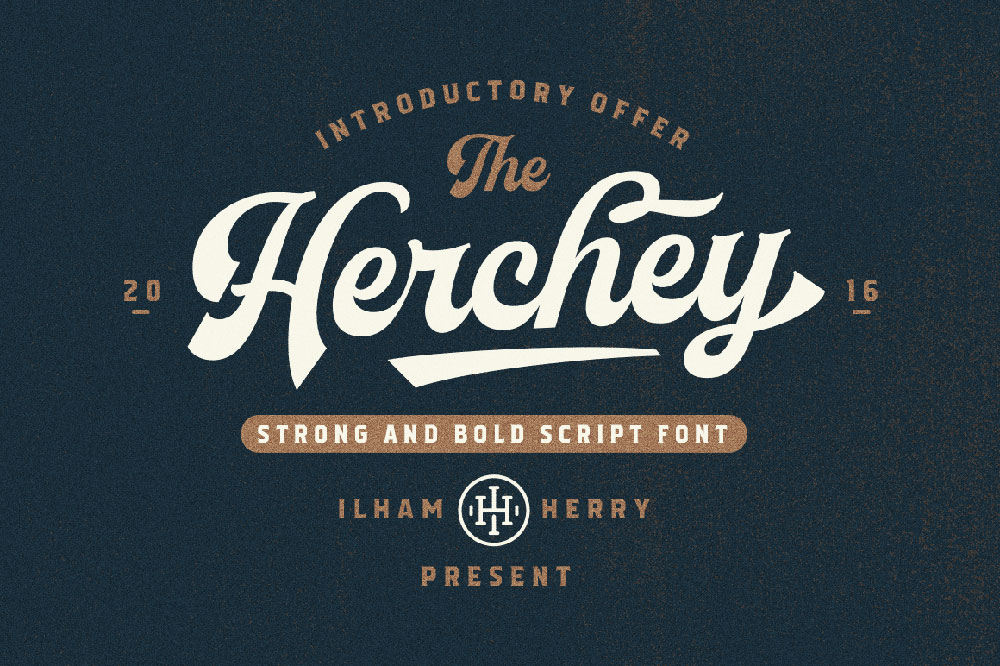
Friends, I am so excited to introduce another awesome fonts bundle by our friends at Pixelo: The Fontastic Bundle. This collection is the most complete fonts bundle they've ever launched. It contains 27 high-quality fonts in various category; display, hand-drawn, and script. Whether you're working on branding, advertisement, t-shirt design, you name it; this bundle has you covered.
Some fonts in this bundle have family and styles that make total 60 fonts included in this package. Many fonts also have vector bonuses that suit each font characteristic. All created by industry leading designers to help you improve your design quality and save hours of your time.